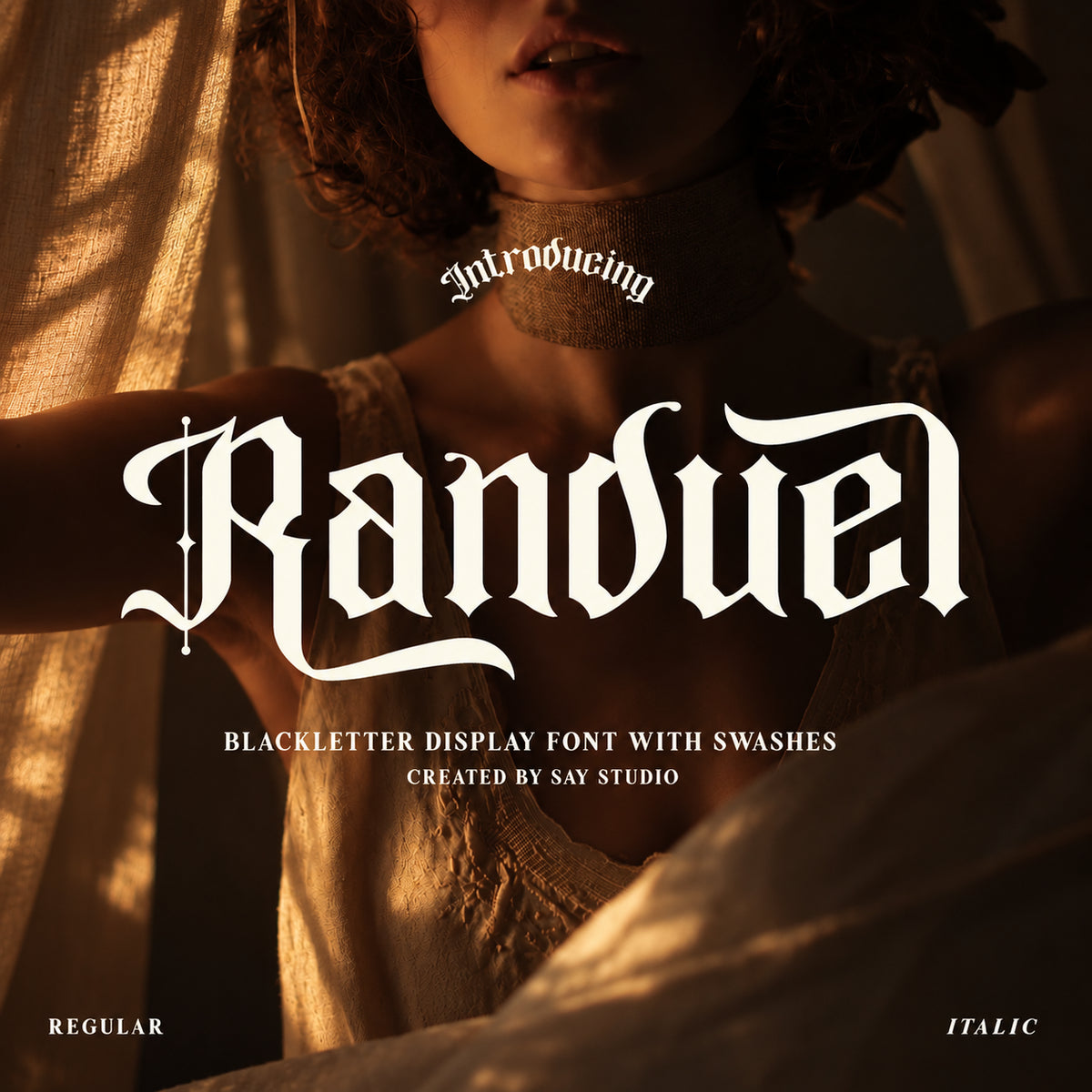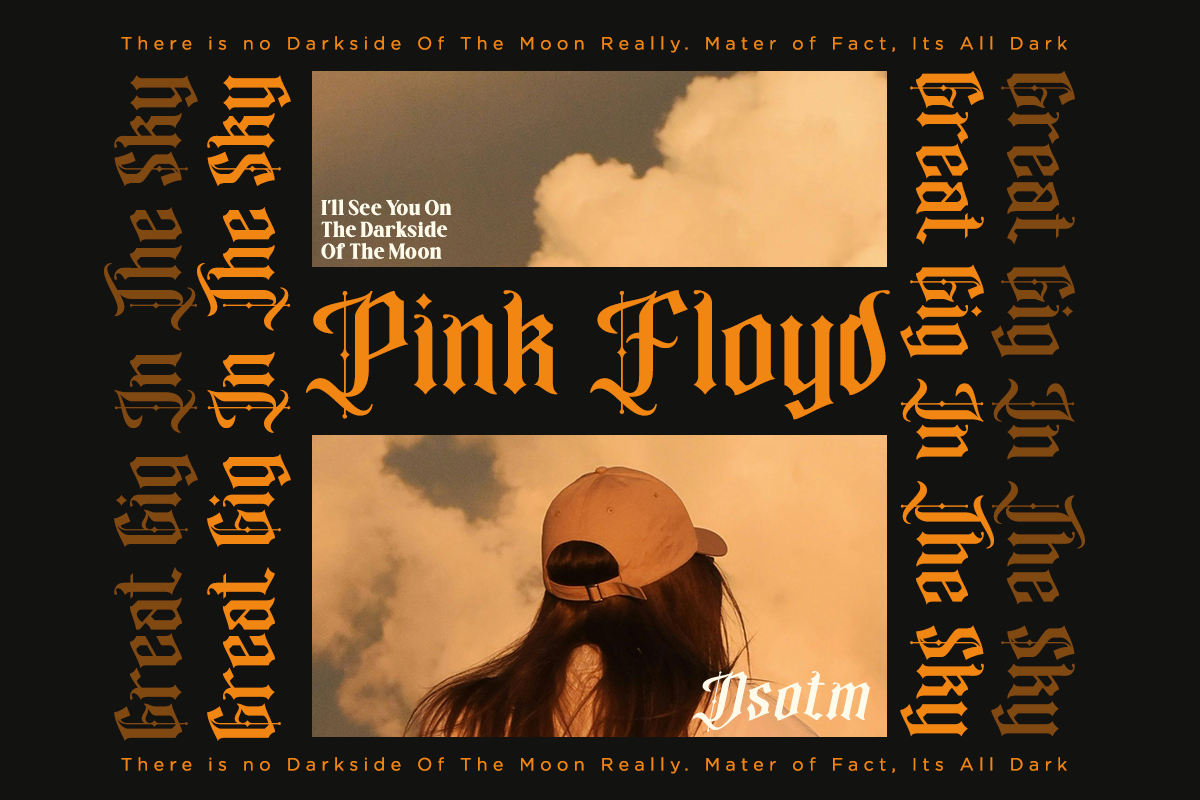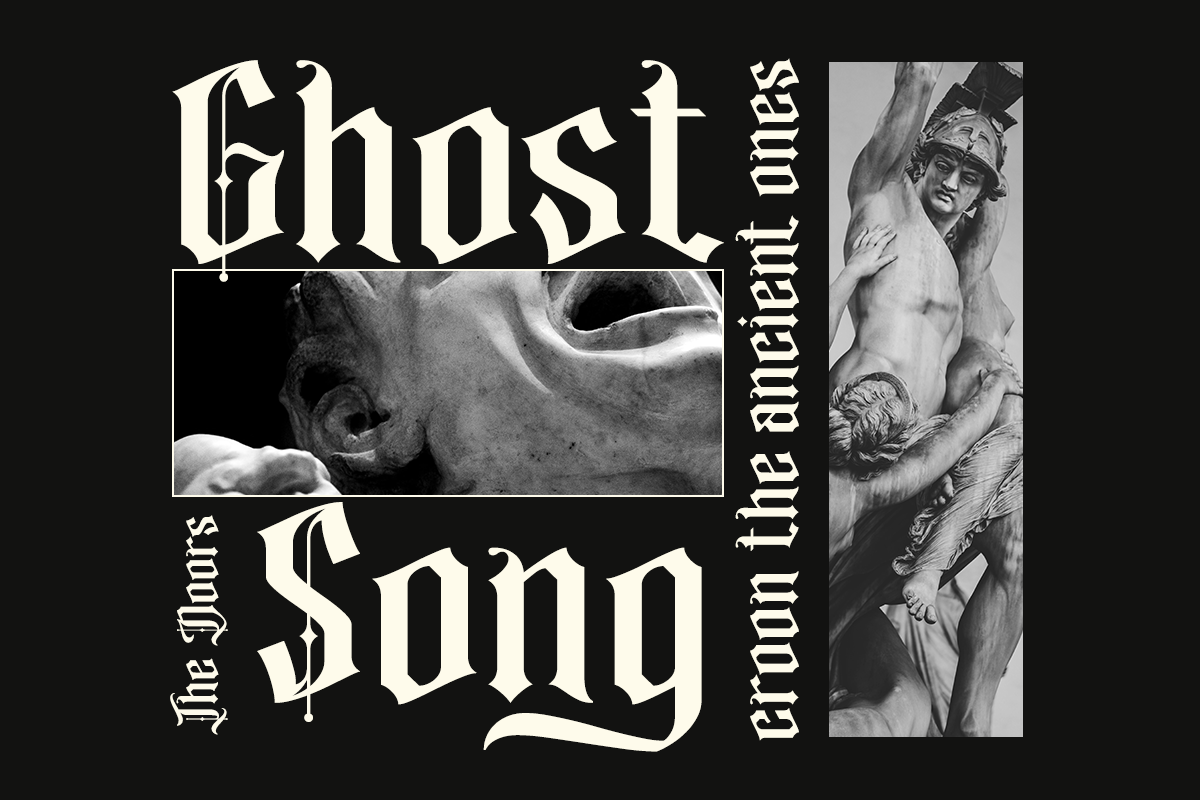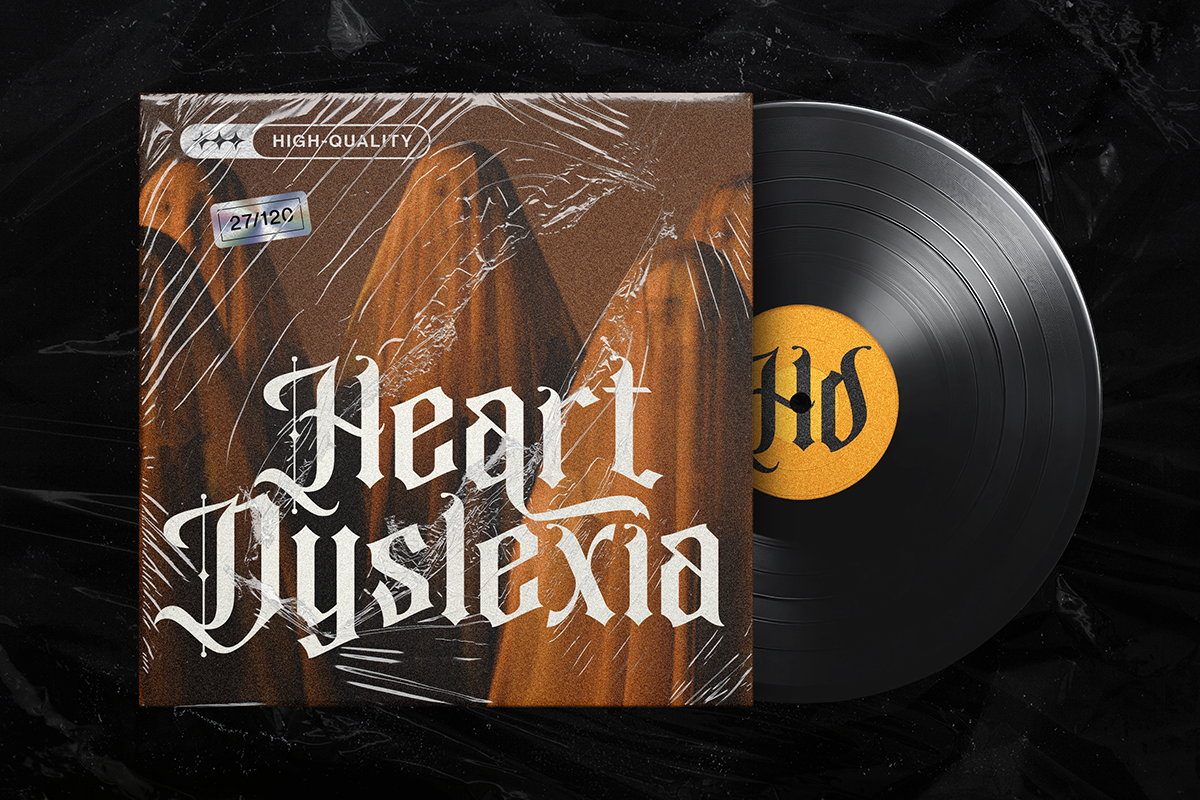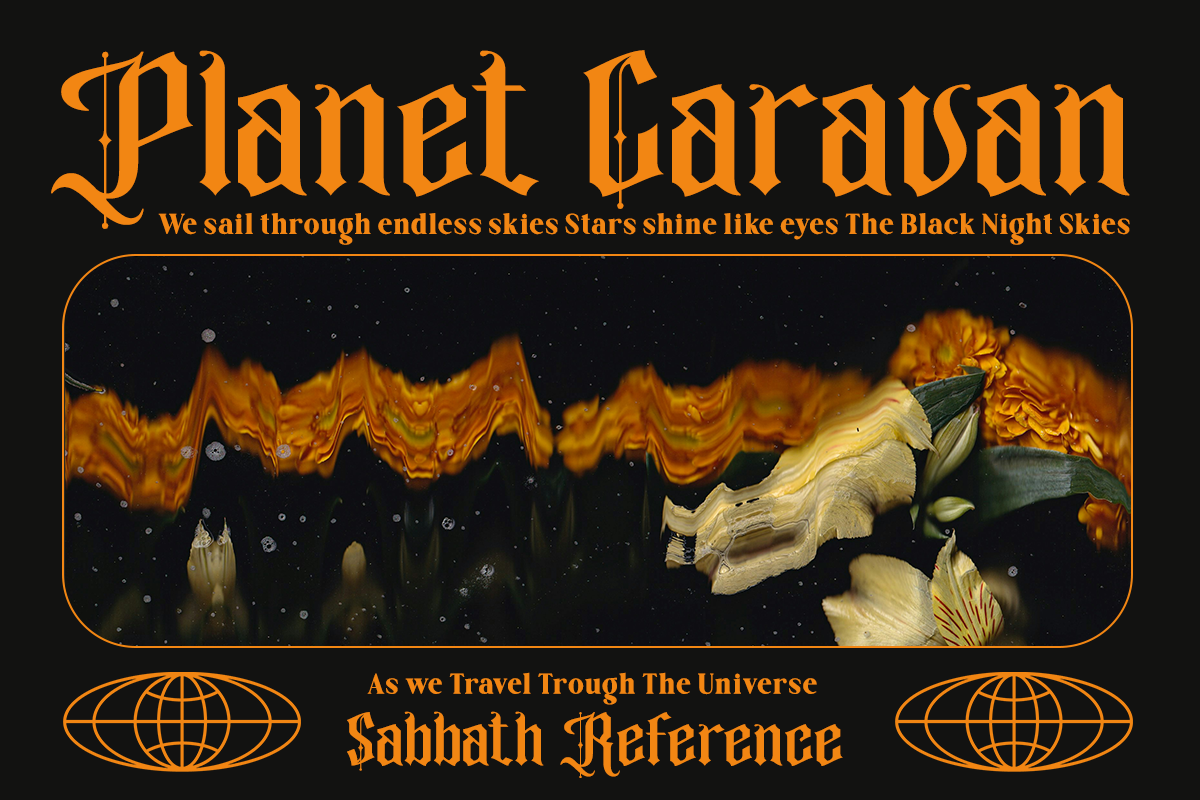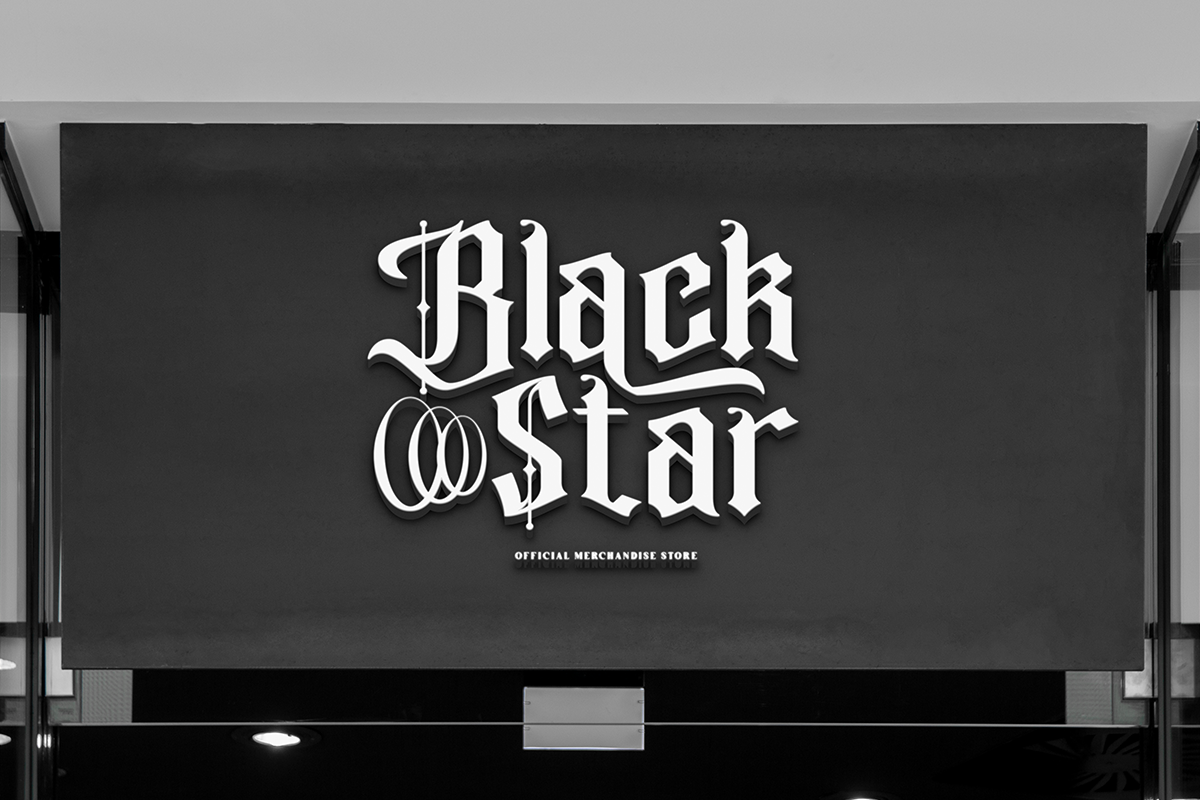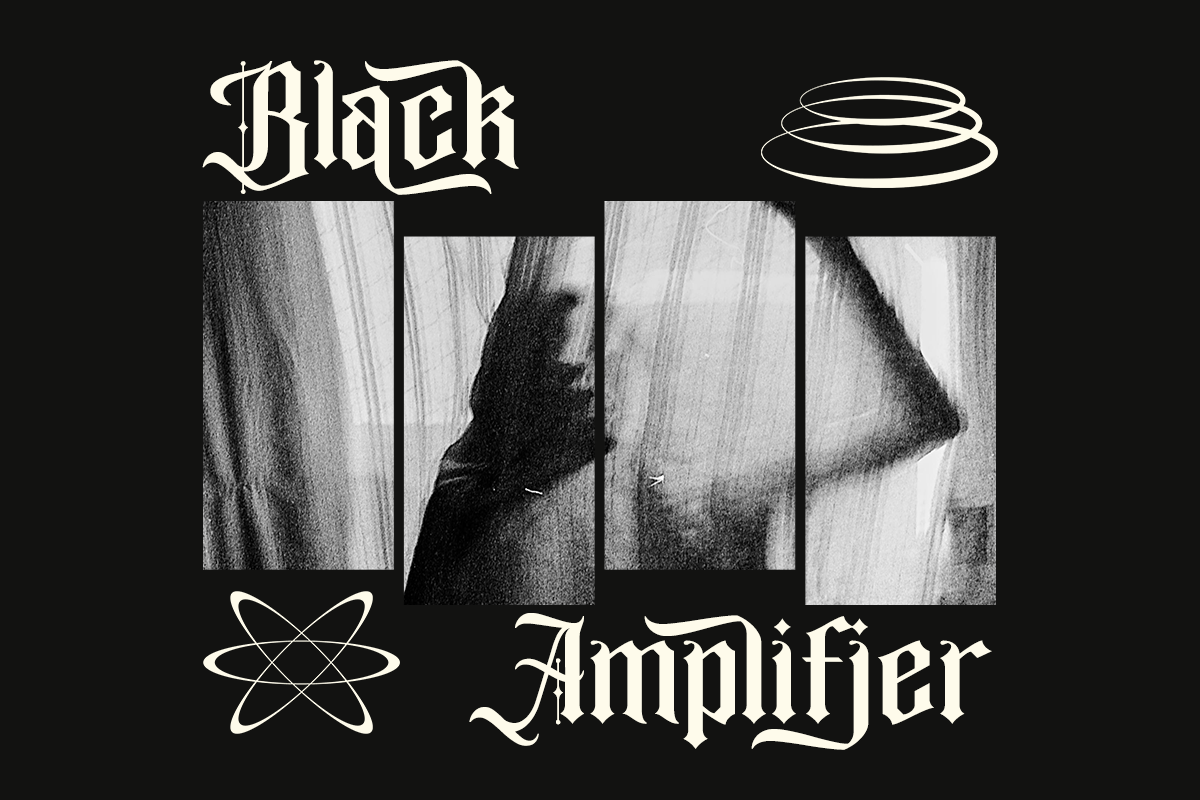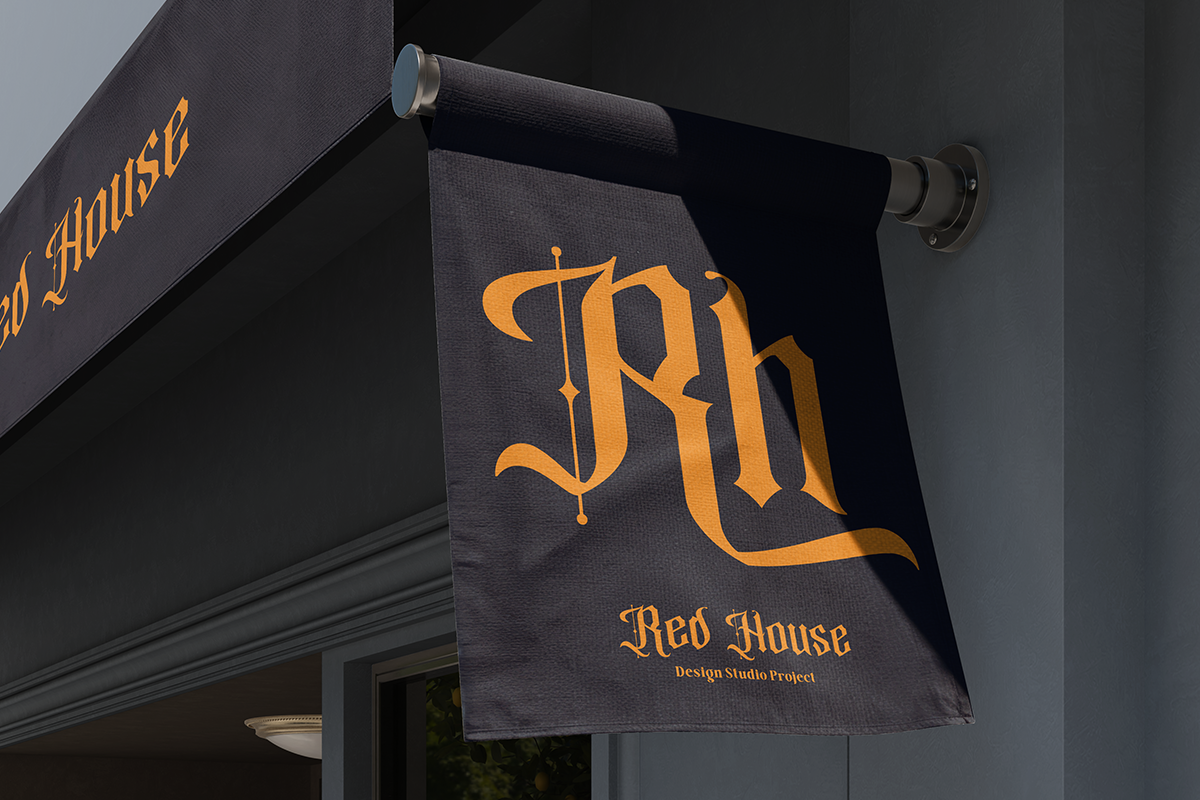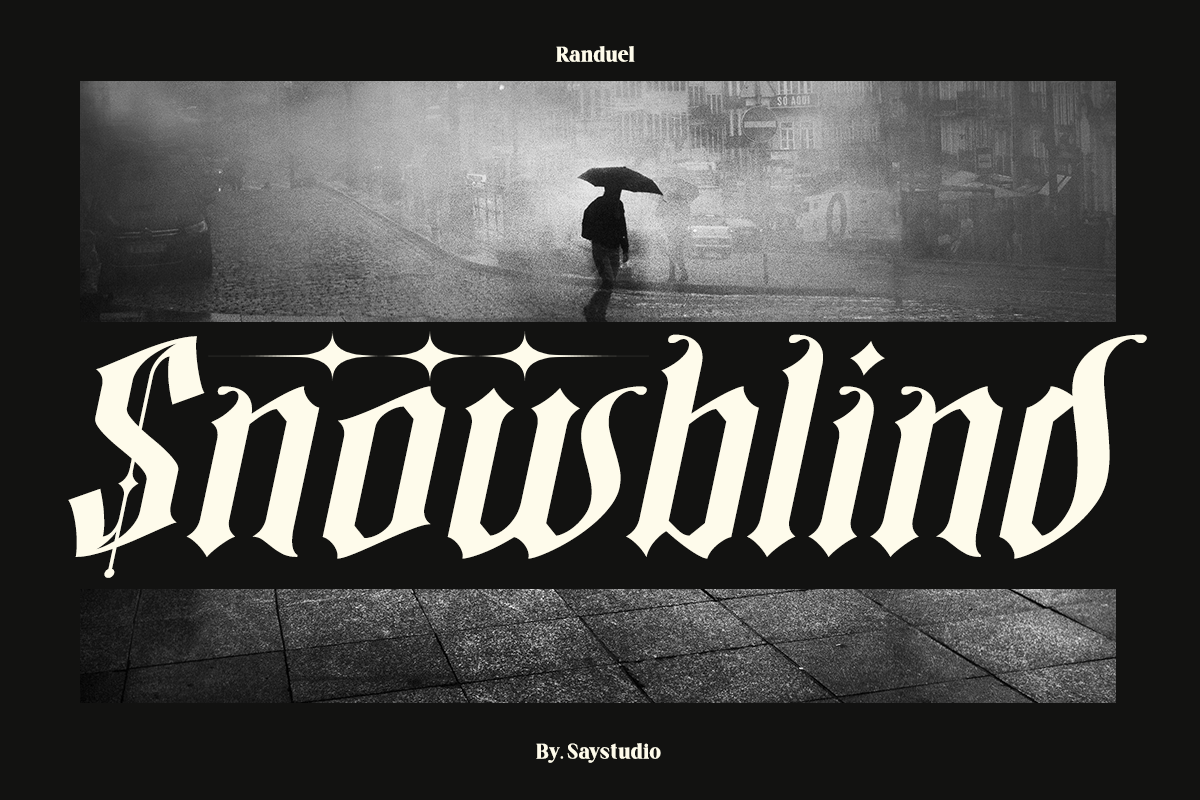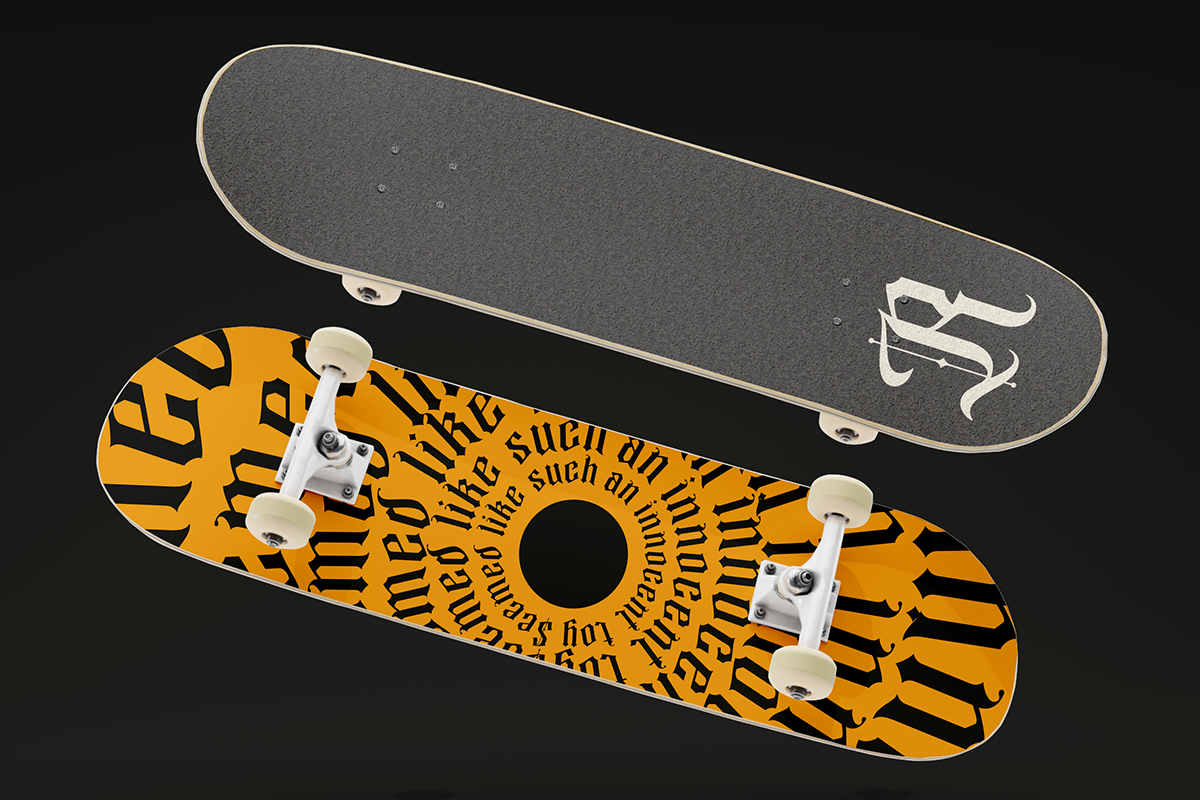
Randuel - Classic Blackletter Display Font
Randuel is Blackletter display font with alternates swash, The font is inspired by the Old English Font used in Western Europe Style with a few combine to turn them into a bit of a modern bold style font. This font is reguler nad italic character style with swashes. Perfect for Logotype, Headline, Newspaper, Book Cover, Certificate , Comic Beer label, Merchandise, Packaging Label, Badge/Emblem Logo, Tattoo and much more.
• Regular and Italic
• Special Alternates
• Uppercase and Lowercase
• Number, Symbol, and Punctuation
Randuel is a Blackletter display font inspired by Old English lettering styles, featuring regular and italic styles with swash alternates. It includes uppercase and lowercase characters, numbers, symbols, punctuation, and multilingual support.